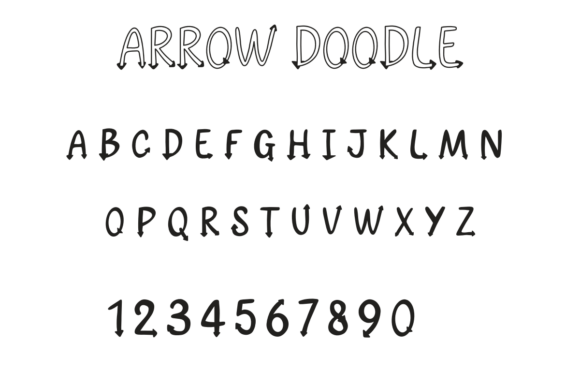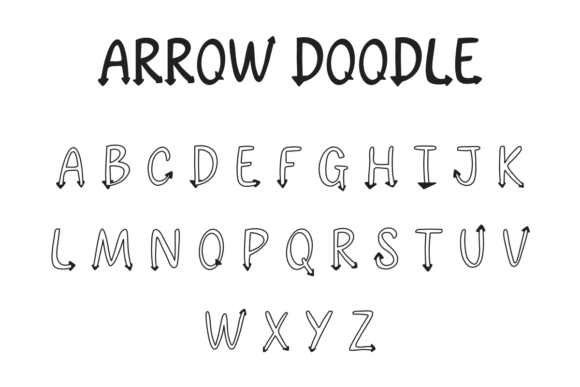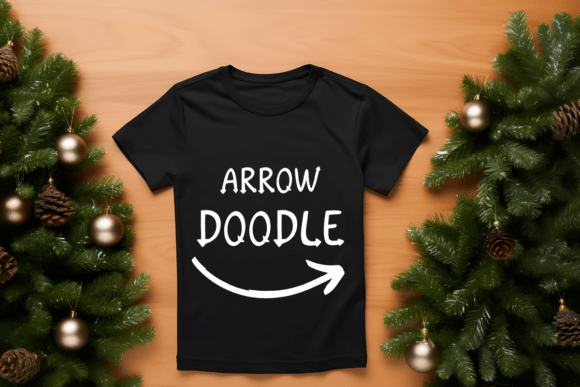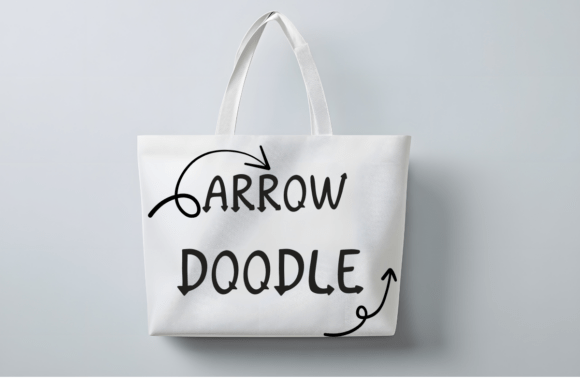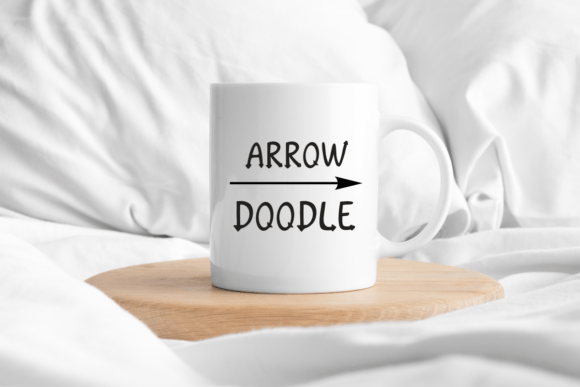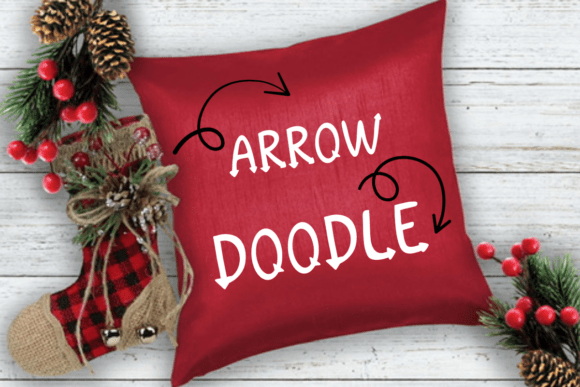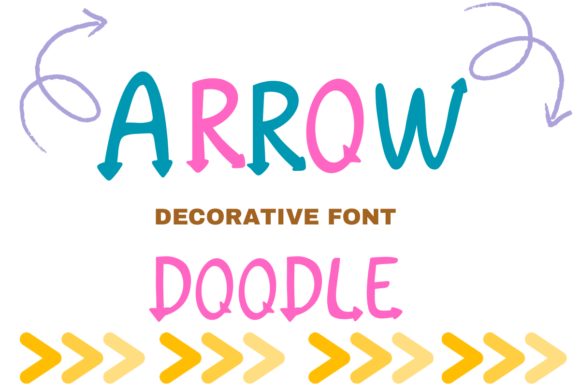
Introducing Arrow Doodle Font: A Quirky and Creative Decorative Display Font
Are you tired of using the same old fonts for your designs? Look no further than Arrow Doodle Font, a unique and playful decorative display font that’s perfect for adding a touch of personality to your projects. With its hand-drawn arrow-inspired letterforms, this font is sure to stand out and make your designs pop.
What Makes Arrow Doodle Font So Special?
Arrow Doodle Font is a one-of-a-kind font that features playful directional strokes and hand-drawn elements. Each character is adorned with arrows pointing up, curling sideways, or moving in other creative ways, bringing motion and energy to every word. This font feels dynamic yet friendly, making it perfect for a variety of design projects, from classroom decor to kids’ designs, handmade crafts, and whimsical branding.
Arrow Doodle Font is a versatile font that’s perfect for designers and crafters who want to add a touch of whimsy to their projects. With its mix of clean and sketchy outlines, this font offers a look that’s informal and spontaneous, yet still bold and intentional. Whether you’re creating interactive worksheets, designing classroom decor, or crafting handmade cards, Arrow Doodle Font is the perfect choice.
Unique Features of Arrow Doodle Font
So, what sets Arrow Doodle Font apart from other fonts? Here are just a few of its unique features:
• Hand-drawn arrow-inspired letterforms: Each character is carefully crafted with hand-drawn arrows that add a touch of personality to every word.
• Playful directional strokes: The font features playful directional strokes that bring motion and energy to every word.
• Mix of clean and sketchy outlines: The font offers a mix of clean and sketchy outlines, giving it a unique and informal look.
• Arrows integrated into the anatomy of each letter: The arrows are integrated into the anatomy of each letter, turning typography into visual storytelling.
Uses for Arrow Doodle Font
Arrow Doodle Font is a versatile font that can be used for a variety of design projects, including:
• Classroom decor: Add a touch of personality to your classroom decor with Arrow Doodle Font.
• Kids’ designs: Create fun and playful designs for kids with Arrow Doodle Font.
• Handmade crafts: Use Arrow Doodle Font to add a personal touch to your handmade crafts.
• Interactive worksheets: Create engaging and interactive worksheets with Arrow Doodle Font.
• Whimsical branding: Use Arrow Doodle Font to create a unique and playful brand identity.
Why Choose Arrow Doodle Font?
So, why choose Arrow Doodle Font for your design projects? Here are just a few reasons:
• Unique and playful: Arrow Doodle Font is a one-of-a-kind font that’s sure to add a touch of personality to your designs.
• Versatile: The font can be used for a variety of design projects, from classroom decor to whimsical branding.
Arrow Doodle Font is a quirky and creative decorative display font that’s perfect for designers and crafters who want to add a touch of personality to their projects. With its hand-drawn arrow-inspired letterforms, playful directional strokes, and mix of clean and sketchy outlines, this font is sure to stand out and make your designs pop. Whether you’re creating classroom decor, kids’ designs, handmade crafts, or whimsical branding, Arrow Doodle Font is the perfect choice.